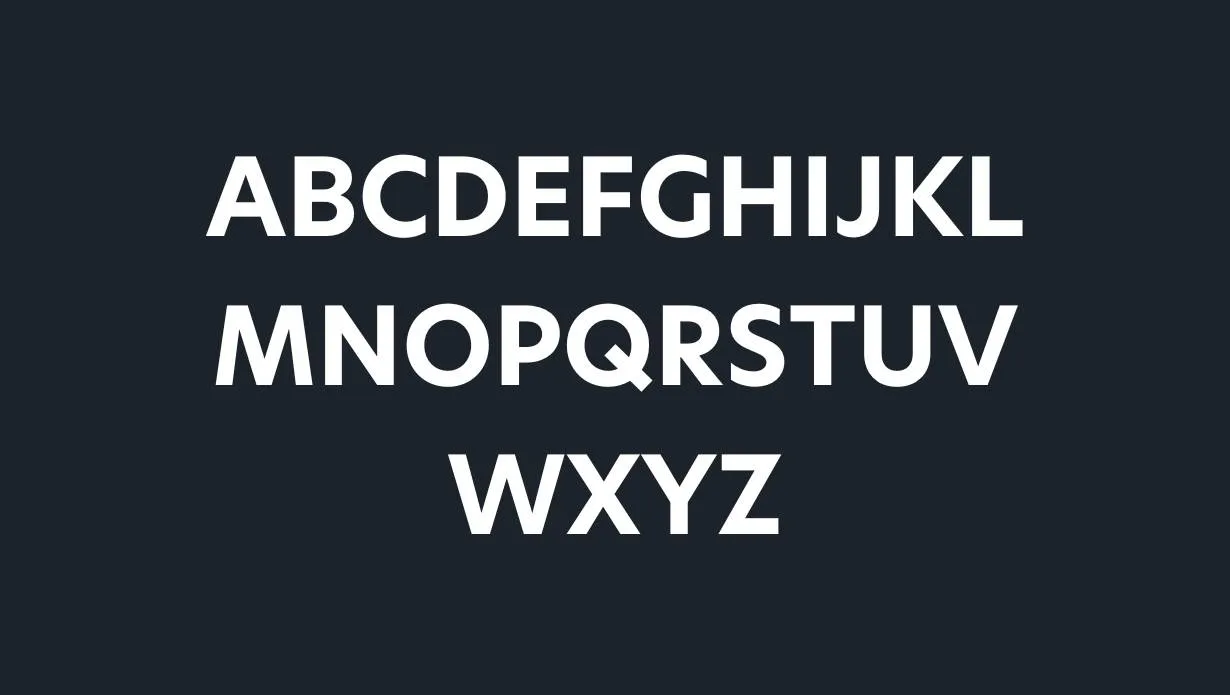
Hero New Font was created by a well-known typographer Miles Newlyn. He created various other typefaces as well which gained the attention of a big chunk of people. This typeface belongs to the Sans-Serif font family.
Hero New Font Info
| Name | Heronews Font |
| Designer | Miles Newlyn |
View of Hero New Font